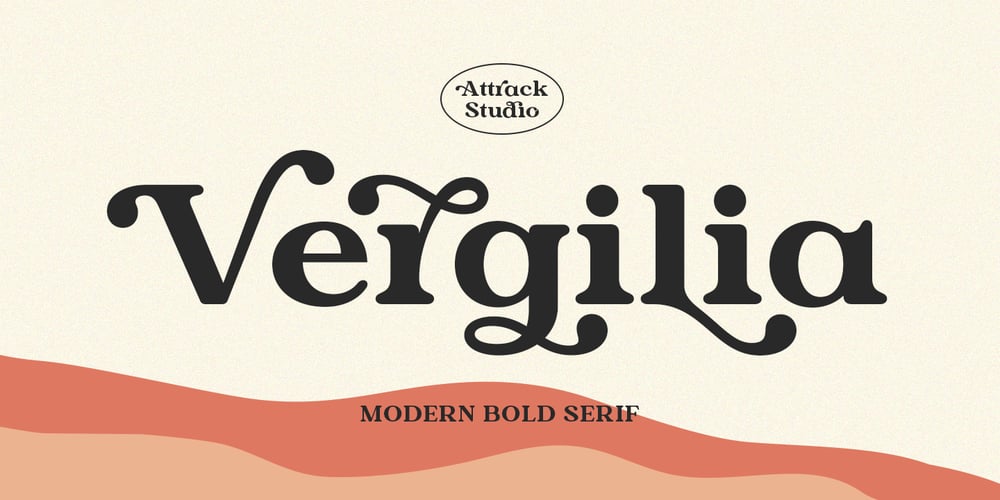
Vergilia Font Family was designed by Muammar Kadafi and published by Attract Studio. Vergilia contains 2 styles and family package options. Vergilia – Modern Bold Serif Font is a stylish font It has a modern and retro look that is easy to read. Vergilia also comes with an outline style to help with your designs. Great for creating logos, quotes, posts, branding projects, magazine imagery, wedding invitations, even long text and much more.Vergilia Features: Multi language PUA Encoded Alternates Ligatures. To be able to access alternative fonts, make sure the software you use can support opentype features such as Microsoft Word, Paint, Adobe, Corel draw, Cricut and other applications.